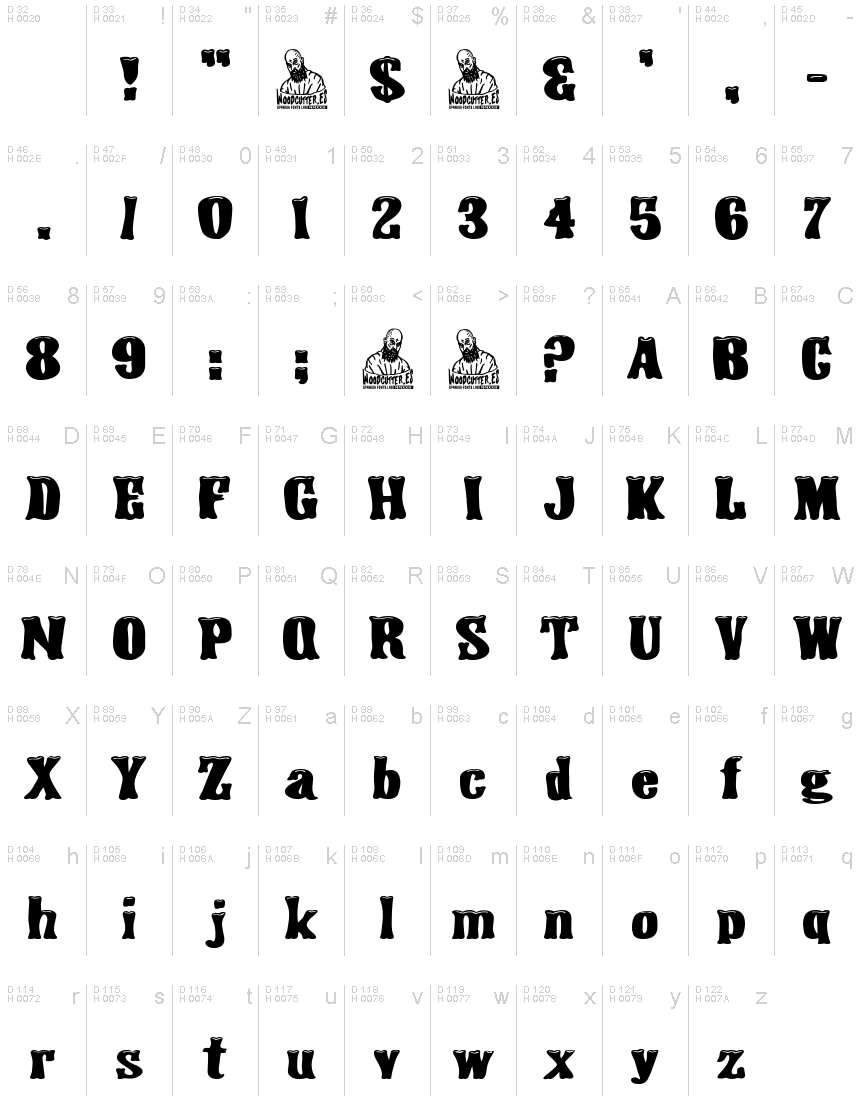
Johnny The Kid
Johnny The Kid exudes a captivating charm with its bold, playful character. Designed by Woodcutter, this display font stands out with its exaggerated curves and unique contours, imbued with a sense of adventure and whimsy. The striking weight creates an assertive presence, making it perfect for eye-catching headlines and engaging designs.
Visually, Johnny The Kid embodies a spirited flair that invites curiosity while retaining a fun yet polished demeanor. Its vibrant personality lends itself beautifully to creative contexts such as branding for children's products, event promotions, or any artistic endeavor seeking to communicate energy and enthusiasm.
This font's distinct style ensures it captures attention in both print and digital media, encouraging exploration and engagement in the intended audience.